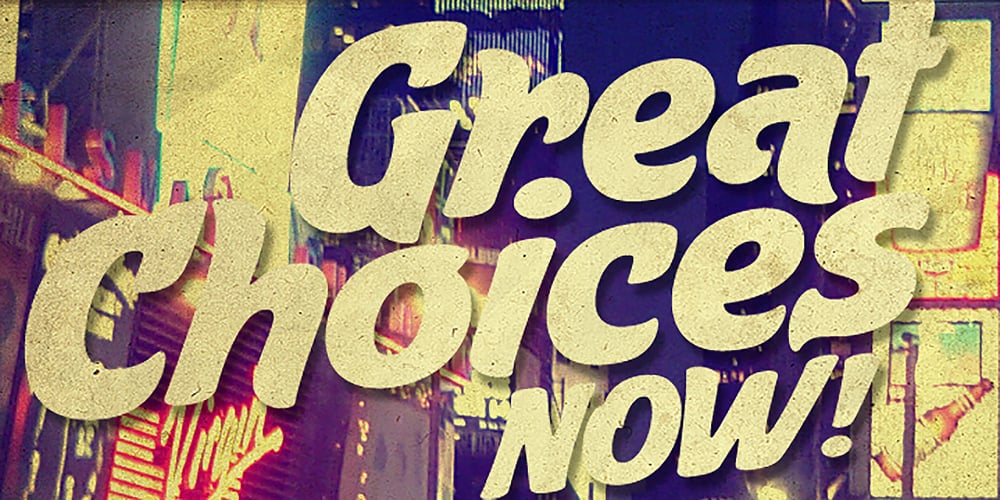
Aventura Font Family was designed by Alejandro Paul, Angel Koziupa and published by Sudtipos. Aventura contains 1 styles and family package options. Aventura is burlesquely round, stylishly seductive, eternally sugar-fixed, and loving to a fault. Plenty of stylistic alternates are included to heighten the mood or soften it. Either way you look at it, there’s a lot of love in the air.